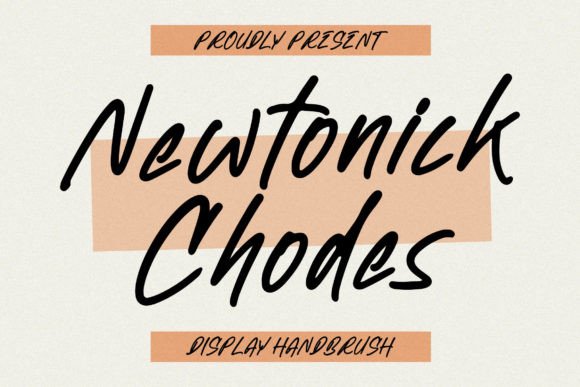
Unleash the Enchanting Allure of Elegance with Newtonick Chodes Font
Immerse yourself in the world of captivating typography with Newtonick Chodes, a script font that dances across the digital realm with grace and charm. Crafted with meticulous attention to detail by Glorytype Studio, this font is a symphony of flowing strokes, delicate curves, and exquisite letterforms that will elevate your designs to new heights of sophistication and allure.
Experience the Timeless Beauty of Handwritten Elegance
Newtonick Chodes embodies the essence of timeless beauty, drawing inspiration from the art of handwritten scripts. Each character is meticulously crafted to replicate the fluid motion and organic imperfections of a skilled calligrapher's hand, capturing the warmth and personality of individual handwriting.
Versatile and Adaptable for Endless Creative Possibilities
With the Newtonick Chodes font in your creative arsenal, the possibilities are endless. Whether you seek to enhance your logos, branding projects, homeware designs, product packaging, or any other creative endeavor, this font will effortlessly adapt to your vision, seamlessly blending with your unique style.
Add a Touch of Whimsy and Delight to Your Designs
Newtonick Chodes possesses an inherent charm that breathes life into your designs, adding a touch of whimsy and visual delight. Its graceful curves and playful flourishes infuse a sense of movement and energy into any text, creating captivating headlines, eye-catching posters, and enchanting invitations.
Perfect for Personalizing Your Creations
In the realm of personalized design, Newtonick Chodes shines as a true star. Its versatility extends to creating custom mugs, quotes, posters, shopping bags, t-shirts, and more, allowing you to add a personal touch to your everyday items. Let your creativity soar as you infuse your designs with the unique charm of Newtonick Chodes.